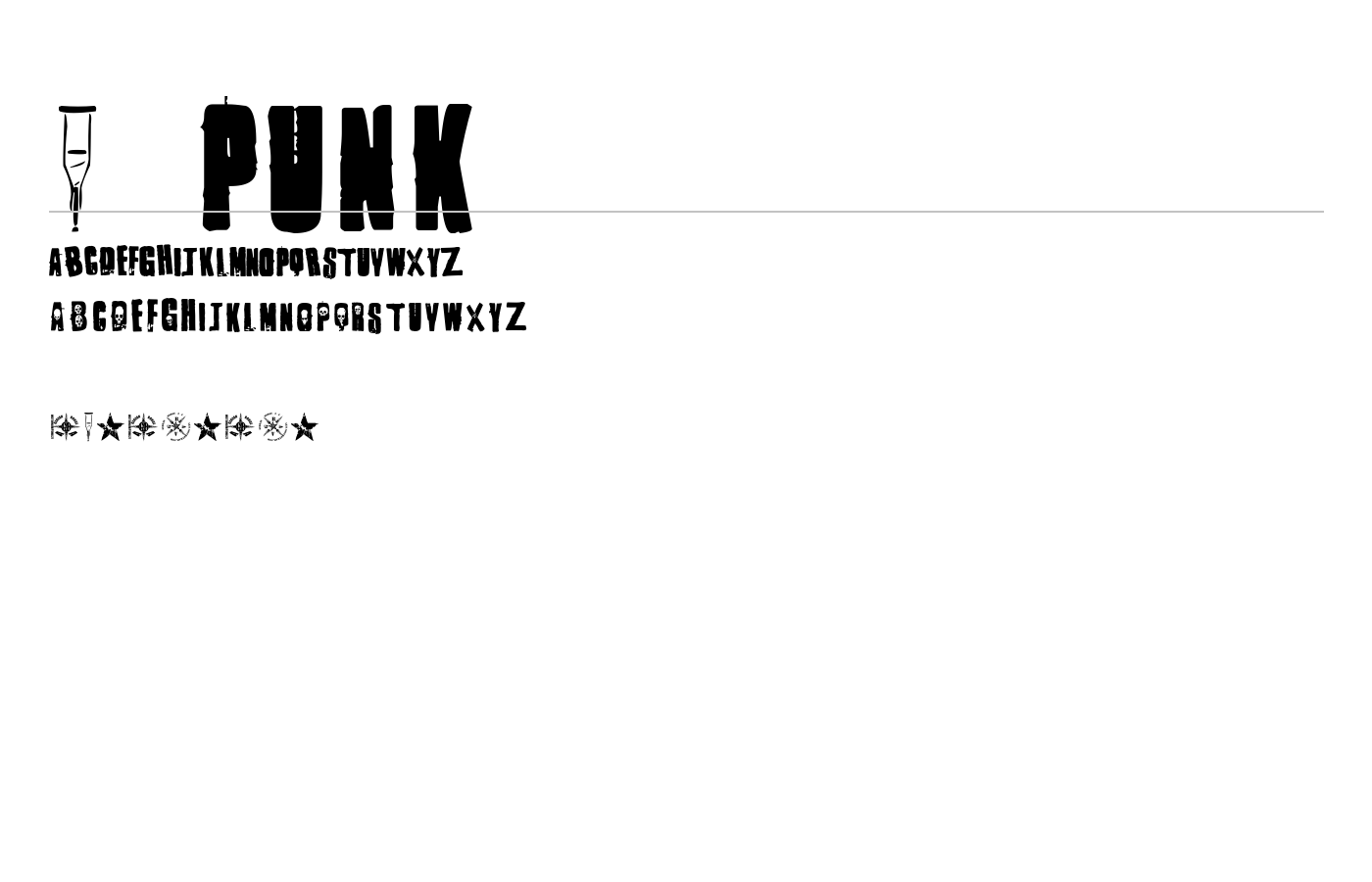
1 Punk Font is a bold, distressed sans serif with a strong, rebellious character reminiscent of punk rock aesthetics. Its heavy weight, irregular edges, and rough texture give it a gritty, urban feel perfect for edgy designs, music posters, or branding that aims to stand out with attitude. This font works best in headlines and display use where its chaotic, energetic style can make a powerful visual impact.
1 Punk Font
About 1 Punk Font